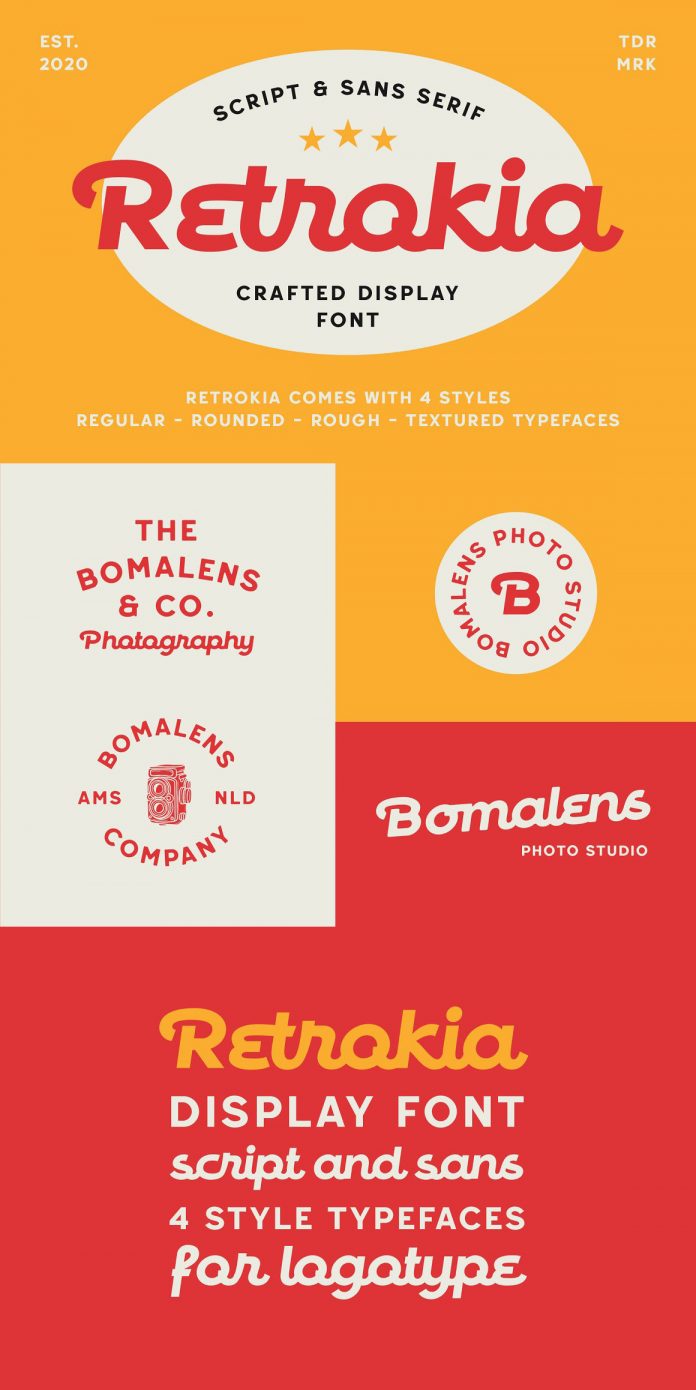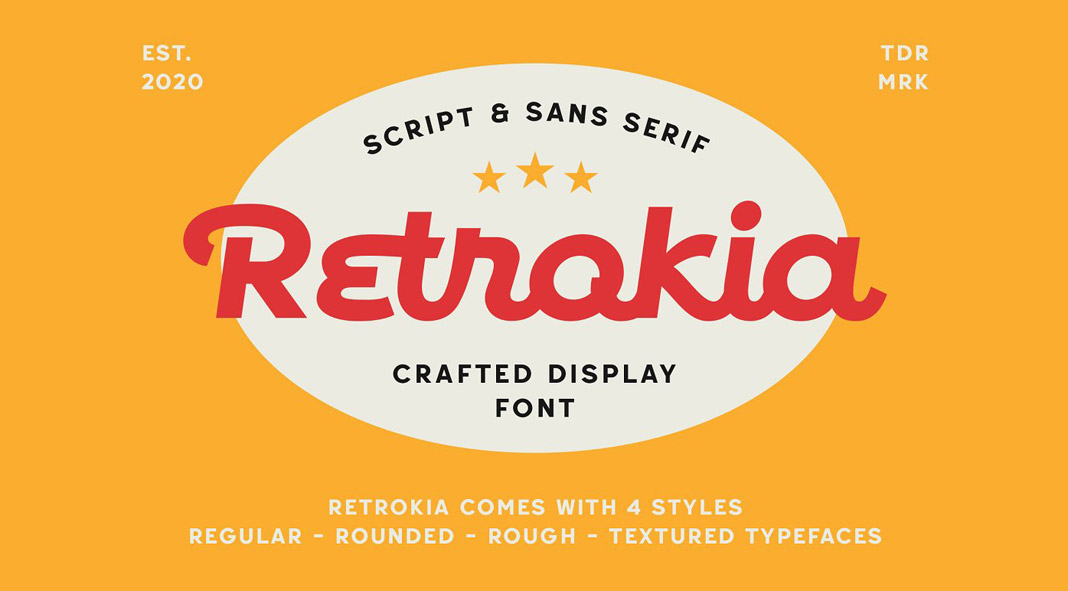
Retrokia, a vintage-inspired display font that offers four stylish retro styles.
Created and published in 2021 by Edignwn Type, Retrokia is a display font specially made for logotypes. It contains script and sans serif fonts. Every font comes with 4 styles (regular, rounded, rough, and textured). The script version includes some stylish alternates and ligatures. In addition to logo design, Retrokia is also well suited for posters, labels, badges, packaging, t-shirts, branding, quotes, just to name a few.